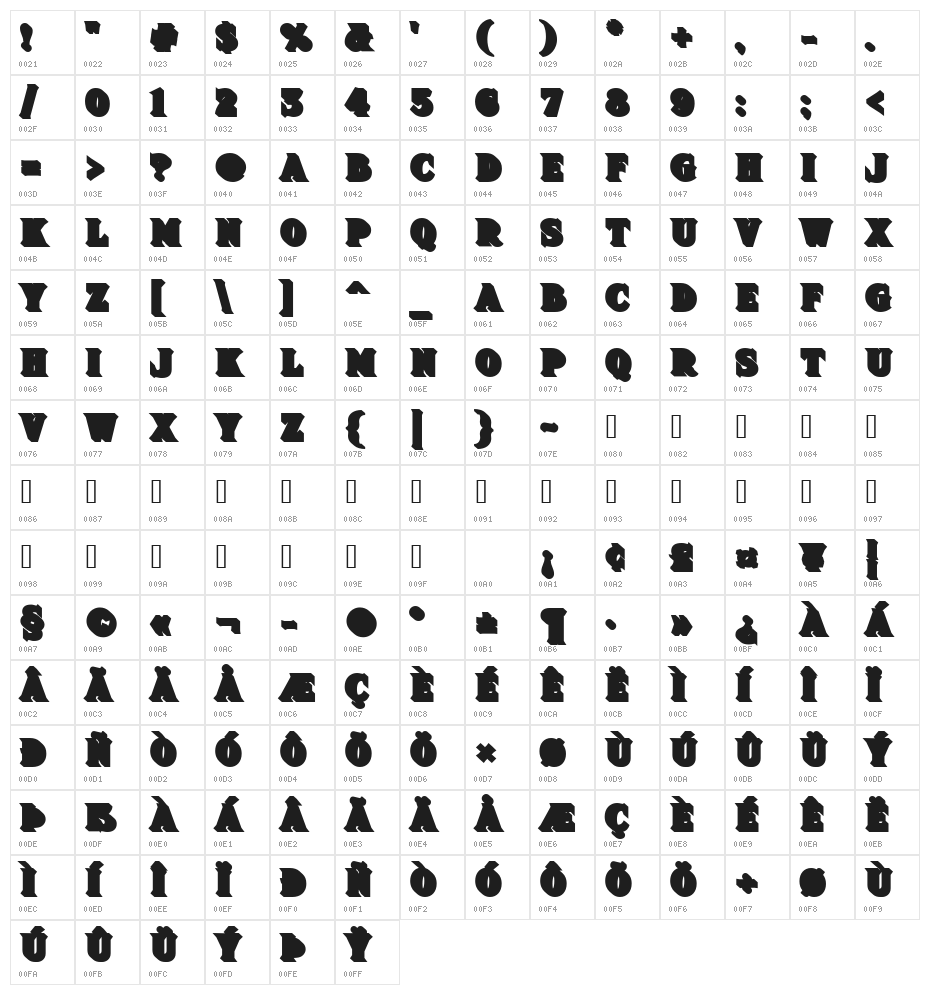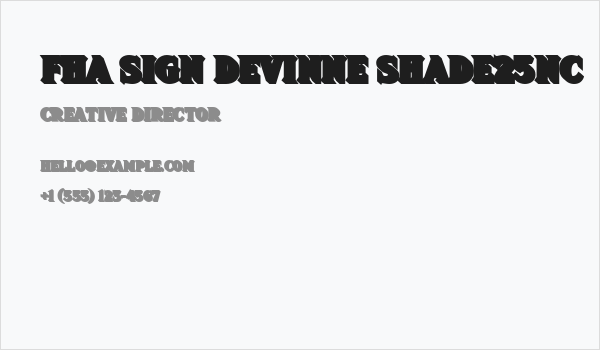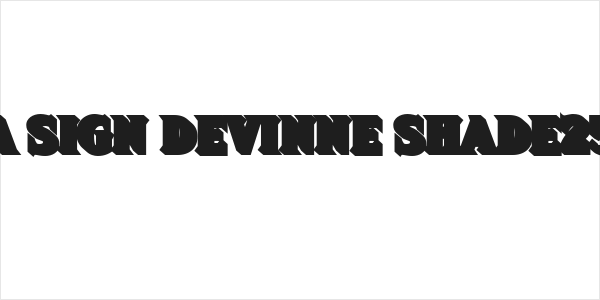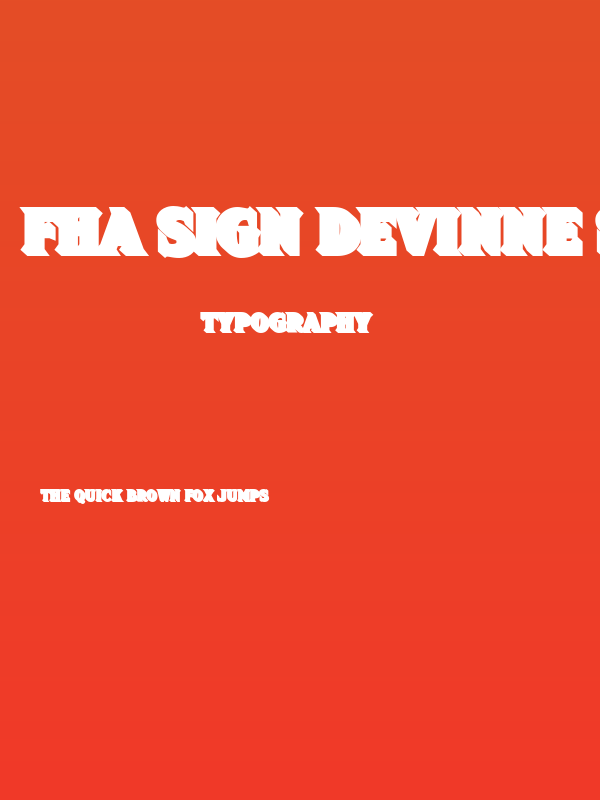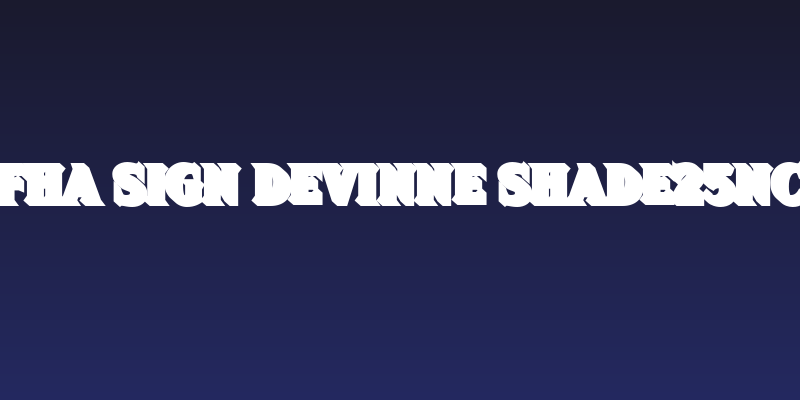
FHA Sign DeVinne Shade25NC Font
FHA Sign DeVinne Shade25NC Description
This font features bold, dramatic letterforms with a strong presence, characterized by its thick strokes and shadowed effect that gives a three-dimensional appearance. The uppercase letters are particularly striking, with sharp serifs and a robust structure that commands attention. The numbers and special characters maintain this bold style, ensuring consistency across all glyphs. The shadow effect adds depth, making it ideal for impactful designs.
| Proposed Projects | Ideal for vintage posters, signage, branding projects, and any design requiring a bold, eye-catching typeface. |